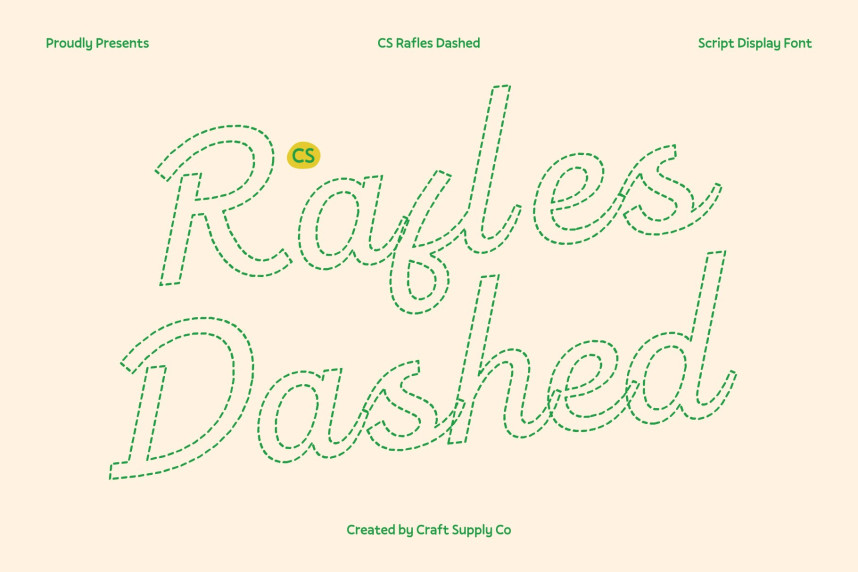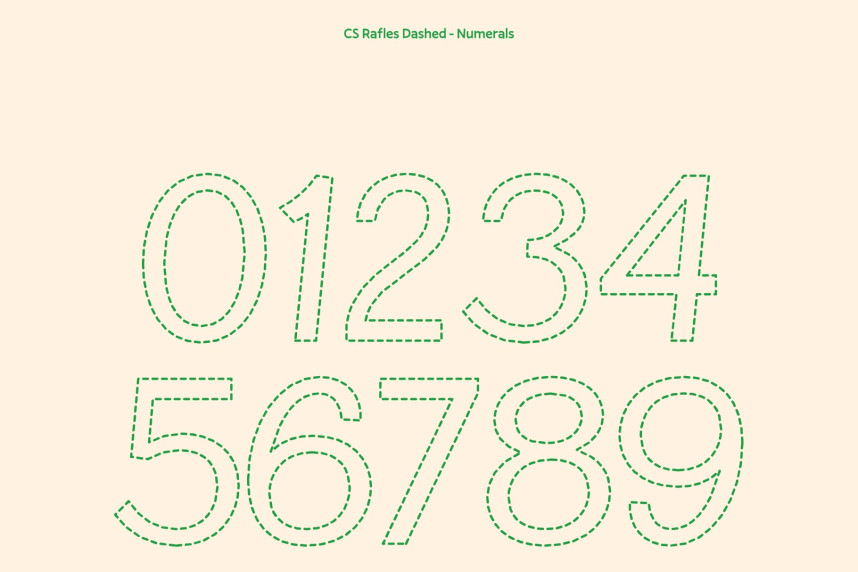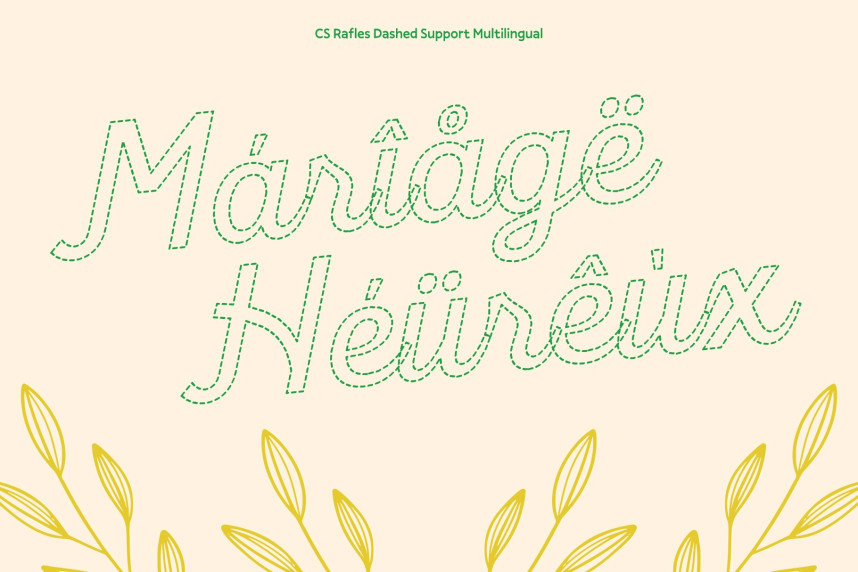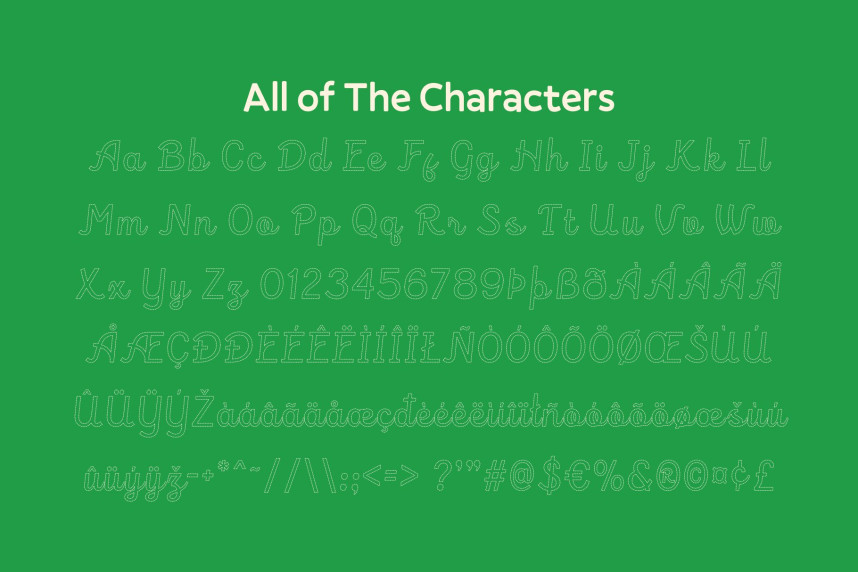
CS Rafles Dashed Font
CS Rafles Dashed Font – Elegant Script Font. Graceful, Flowing, and Sophisticated
This is a modern script font featuring smooth, flowing cursive strokes enhanced with a delicate dashed texture. This broken-line detail adds a handcrafted and artistic nuance while preserving the refined elegance of the letterforms. The result is a typeface that feels timeless, polished, and visually distinctive.